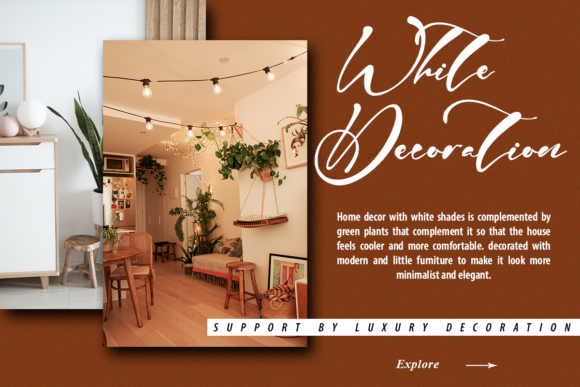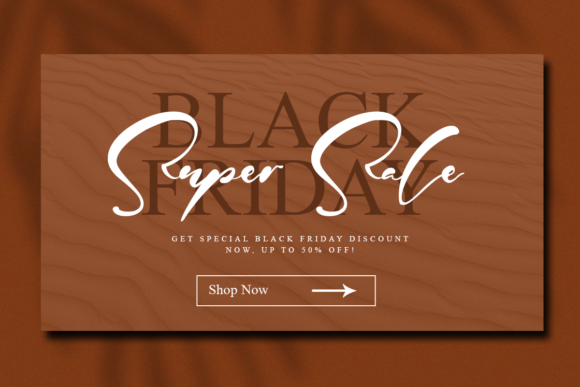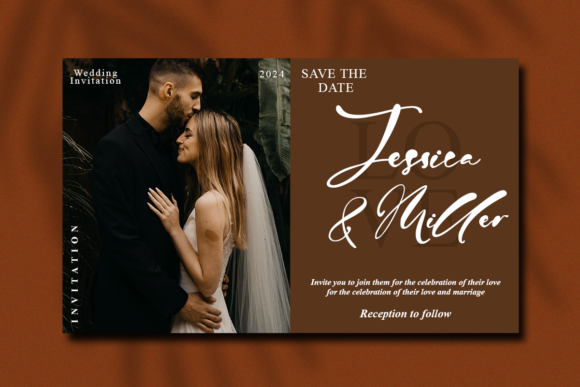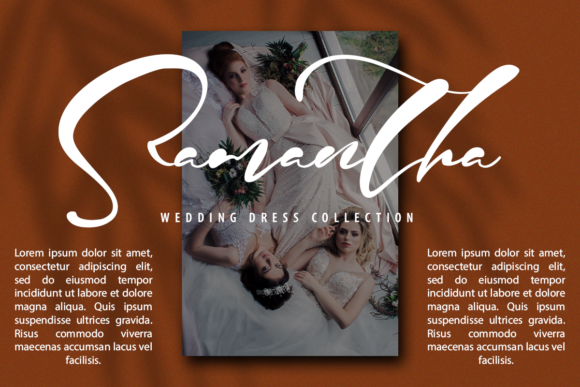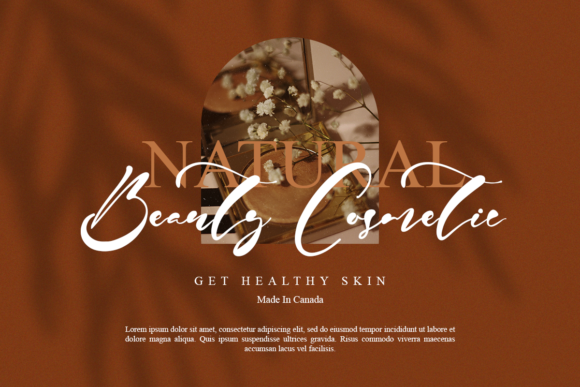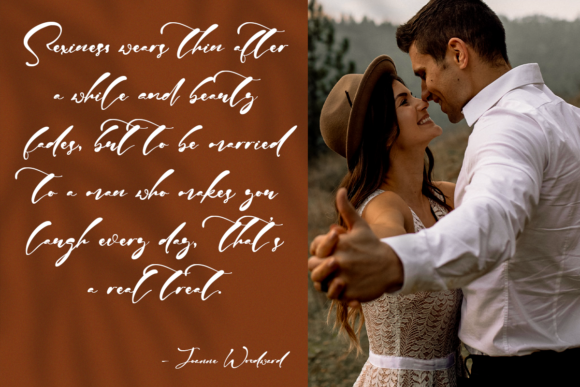
Introducing Harvey Signature Font: Elevate Your Creativity with Elegance
In the world of typography, fonts play a pivotal role in transforming creative ideas into visual masterpieces. For designers, crafters, and social media enthusiasts, finding the perfect font can be a daunting task. However, if you’re looking for a script font that combines trendiness with elegance, look no further than the Harvey Signature Font. This beautiful, flowing script font is meticulously crafted to add a touch of sophistication to any project, making it an ideal choice for Instagram enthusiasts, DIY project lovers, and anyone seeking to infuse their work with a delicate artistic flair.
The Essence of Harvey Signature Font
Harvey Signature is not just another script font; it’s a carefully curated typeface designed to bring a sense of fluidity and grace to your creative projects. Its unique, flowing characteristics make it stand out in the realm of calligraphy scripts, offering a fresh and modern take on traditional typography. Whether you’re crafting an Instagram post, working on a DIY project, or brainstorming ideas for your next big design venture, Harvey Signature Font is poised to turn your visions into stunning pieces of art.
Key Features of Harvey Signature Font
- Flowing Script Design: Harvey Signature boasts a smooth, connected script design that lends an air of elegance and continuity to your text.
- Trendiness: With its contemporary design elements, this font is perfect for projects that require a modern edge.
- Versatility: From social media graphics to DIY crafts and professional design projects, Harvey Signature Font adapts seamlessly to various creative applications.
- Easy to Use: Designed with user-friendliness in mind, this font can be easily integrated into your projects, making it accessible to both beginners and seasoned designers.
Applications of Harvey Signature Font
The versatility of Harvey Signature Font makes it suitable for a wide range of applications. Here are a few ideas to get you started:
- Instagram and Social Media: Elevate your social media presence with beautifully crafted posts and stories that stand out.
- DIY Projects: Add a personal touch to your handmade crafts, journals, and cards with elegant calligraphy.
- Graphic Design: Use Harvey Signature Font in your professional design projects to add a touch of sophistication and trendiness.
- Calligraphy and Hand Lettering: Practice your calligraphy skills or create stunning hand-lettered pieces with this beautiful script font.
Tips for Maximizing the Potential of Harvey Signature Font
To make the most out of Harvey Signature Font, consider the following tips:
- Pair with Complementary Fonts: Combine Harvey Signature Font with simpler fonts to create visual contrast and hierarchy in your designs.
- Play with Colors: Experiment with different colors to find the perfect shade that complements your design and enhances the font’s elegance.
- Adjust Size and Spacing: Don’t be afraid to tweak the size and spacing of your text to achieve the desired flow and readability.
Harvey Signature Font is more than just a script font; it’s a tool for creativity, a means to transform your ideas into delicate pieces of art. With its flowing design, trendiness, and versatility, it’s an excellent addition to any designer’s or crafter’s toolkit. Whether you’re looking to enhance your social media presence, create beautiful DIY projects, or simply explore the world of calligraphy, Harvey Signature Font is your perfect companion. So, dive into the world of elegant typography and let Harvey Signature Font guide your creative journey.